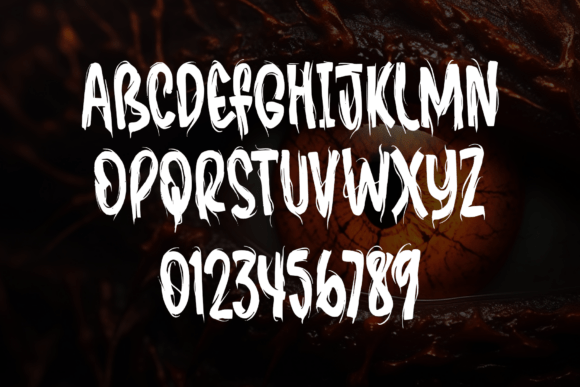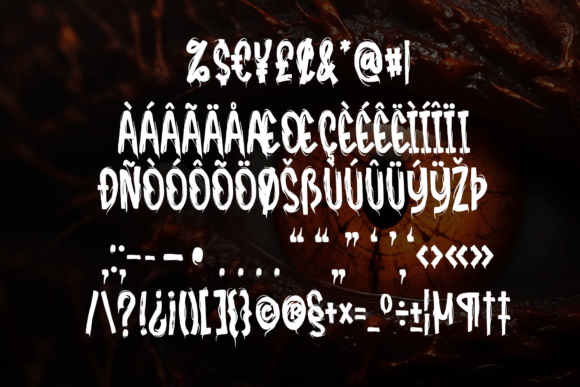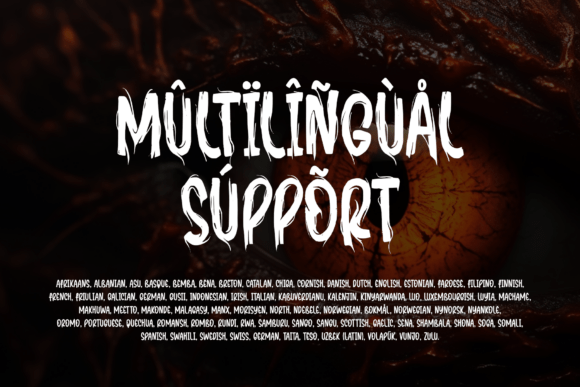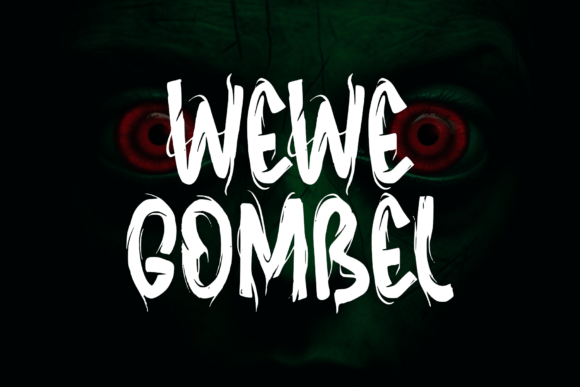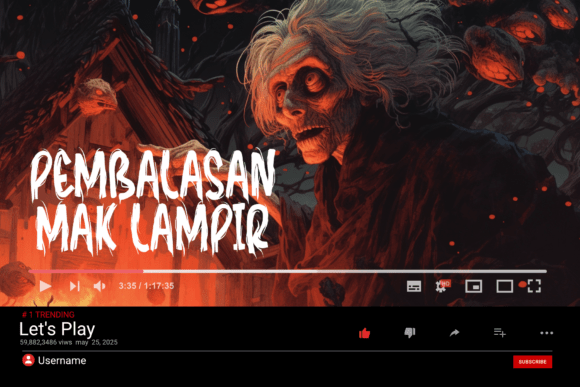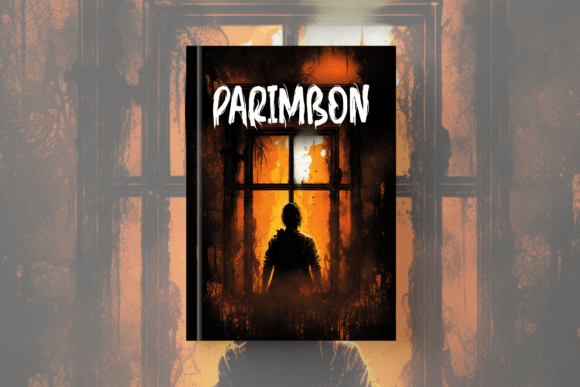
The Darkness Beckons: Unveiling the Charmer Horror Font
As a designer, you’ve probably experienced that moment when a concept clicks, and your creative juices start flowing. It’s like a spark of inspiration that sets your imagination ablaze, and you know exactly what you want to create. For some, it’s a breathtaking sunset, while for others, it’s a haunting atmosphere that sends shivers down their spine. If you’re a fan of the latter, you’re in for a treat. Say hello to the Charmer Horror Font, a typeface that will transport you to a world of eerie uncertainty.
With its unique blend of horror and hallucinatory elements, the Charmer Horror Font is a game-changer for designers looking to create a chilling atmosphere in their designs. Its thin lines and moving characters will make your text come alive, evoking feelings of darkness and foreboding. Whether you’re working on a horror movie poster, a spooky storybook, or promotional materials for a scary event, this font is the perfect companion to help you craft an unforgettable experience.
- Font Family: Charmer Horror Font is a unique, horror-themed font family designed for various applications.
- Unique Characteristics: Charmer Horror Font features a creepy, gothic-inspired design with intricate details, making it perfect for horror-themed projects, such as book covers, posters, and video games.
Review: Charmer Horror Font
Overall, I have mixed feelings about the Charmer Horror Font. On one hand, there are some aspects that work really well, like its unique blend of gothic and horror-inspired elements ✨. The font is great for creating a spooky atmosphere, and its intricate details add a level of sophistication to any design project.
The font is highly customizable, with a wide range of weights and styles to choose from. This makes it suitable for various design applications, from horror movie posters to gothic-themed websites ✨. Additionally, the font is well-suited for both digital and print media, making it a versatile choice for designers.
- ⚠️ Limited legibility: The font’s intricate details can make it difficult to read, especially in smaller font sizes.
- ⚠️ Overuse: The font’s unique design can quickly become overused, making it lose its impact.
Despite its limitations, I believe the Charmer Horror Font is a great addition to any designer’s toolkit. With careful use and attention to detail, it can add a unique touch to any design project. However, it’s essential to weigh the benefits against the potential drawbacks and use it judiciously to avoid overuse.
Some tips for getting the most out of the Charmer Horror Font include:
- Using it to create spooky or eerie designs.
- Pairing it with bold or distressed fonts for a unique look.
- Using it for titles or headings to add a touch of horror or mystery.
Yes, Charmer Horror Font is a highly customizable font. It supports a wide range of OpenType features, including ligatures, swashes, and stylistic sets. You can also use font editing software to customize the font to fit your specific design needs.